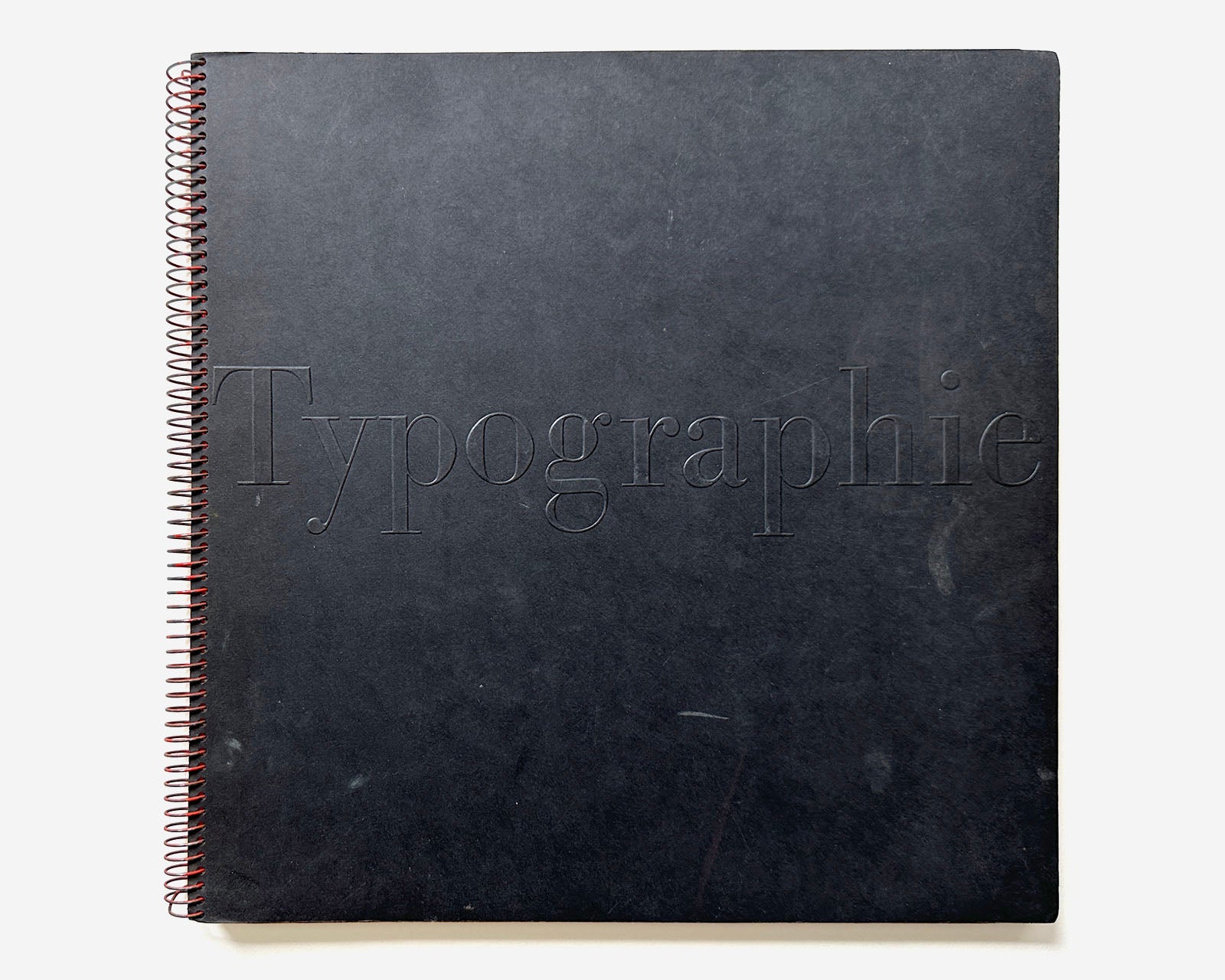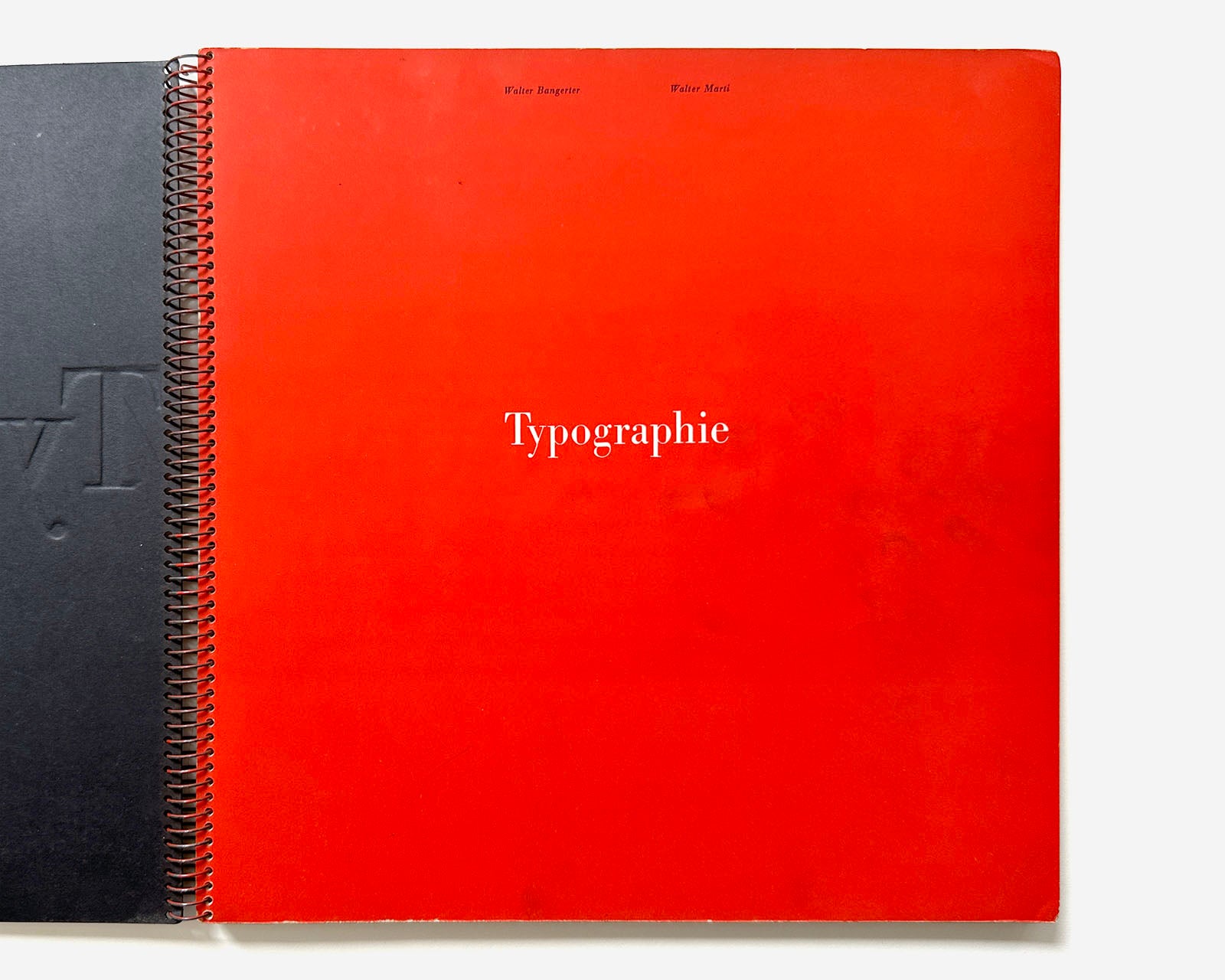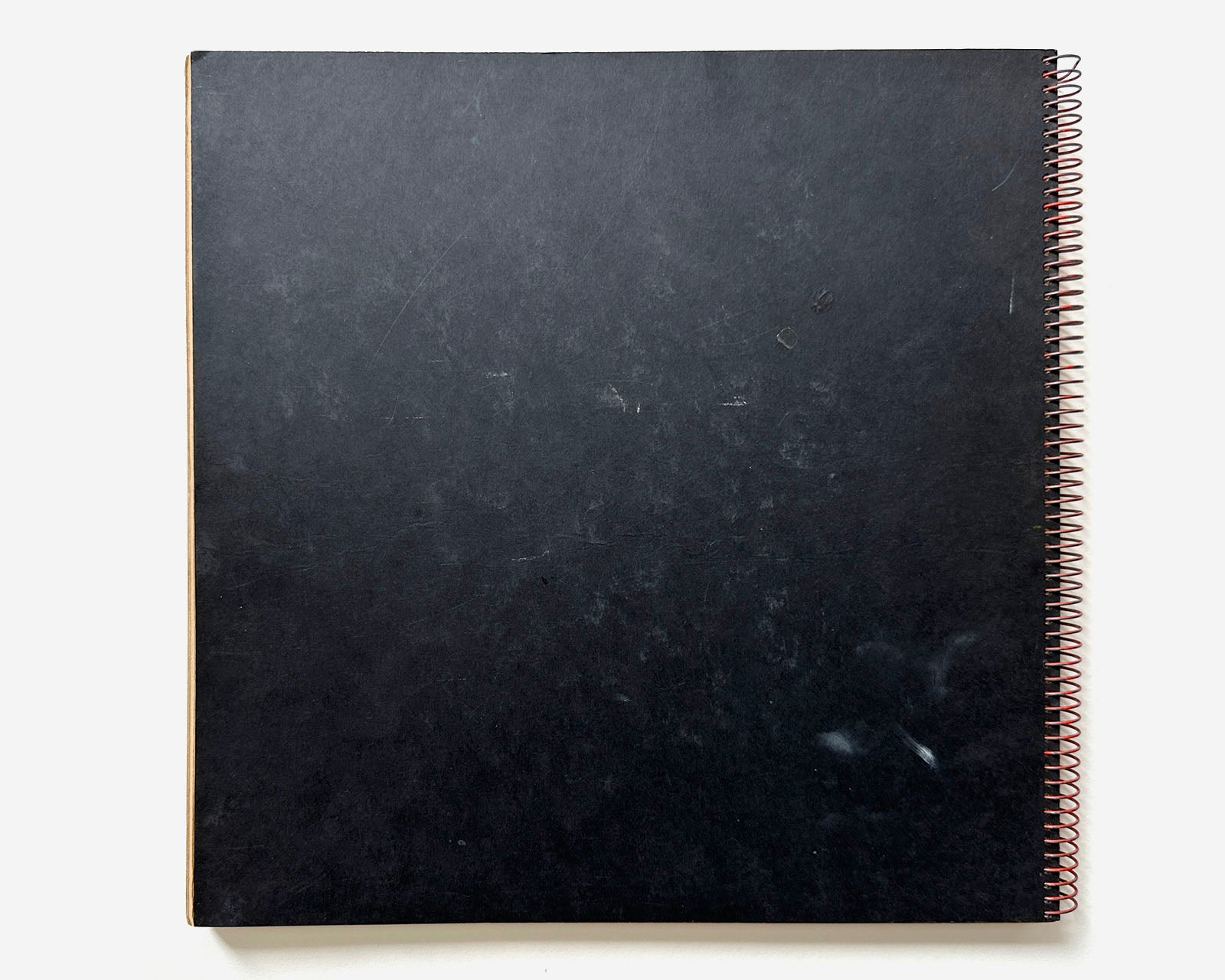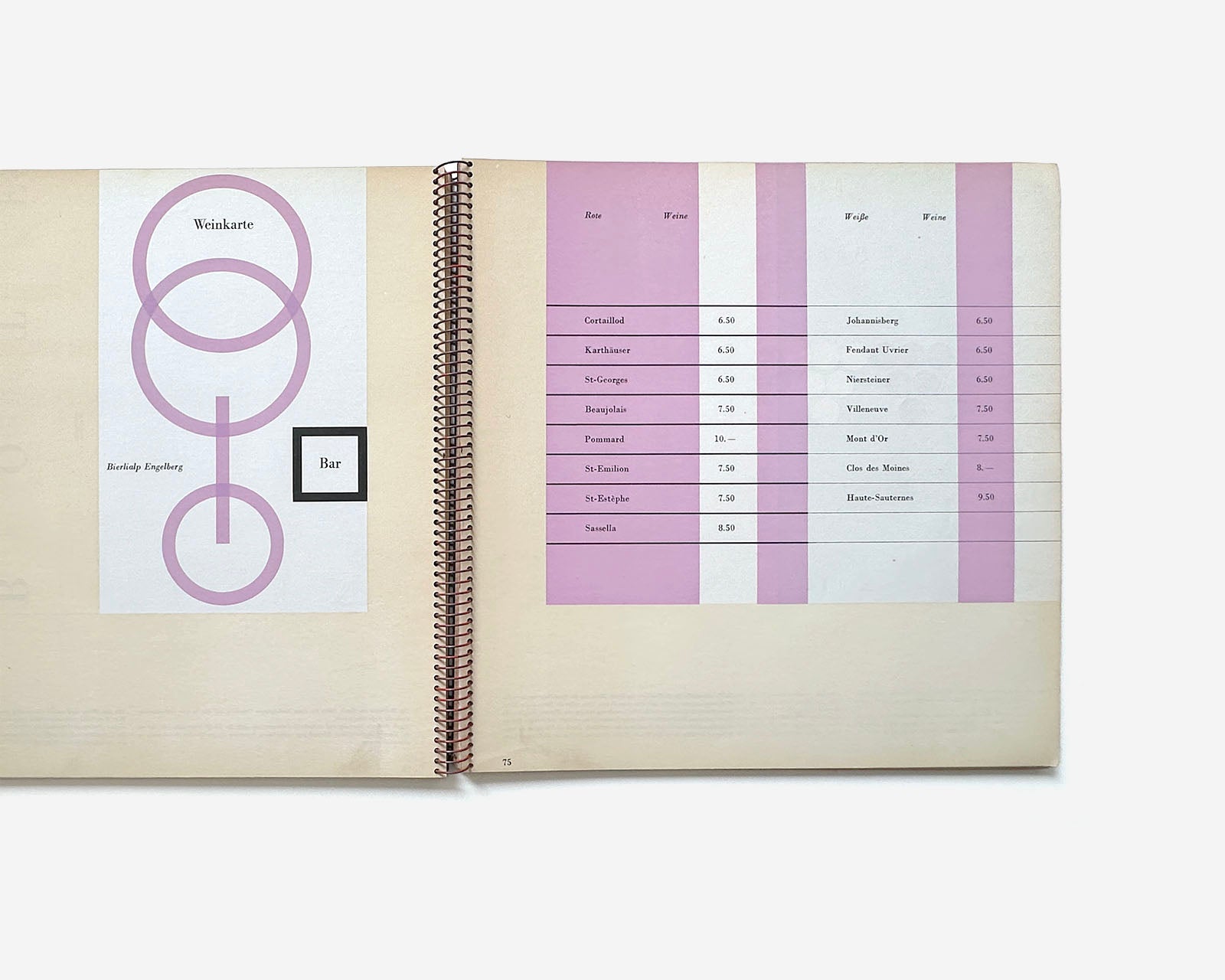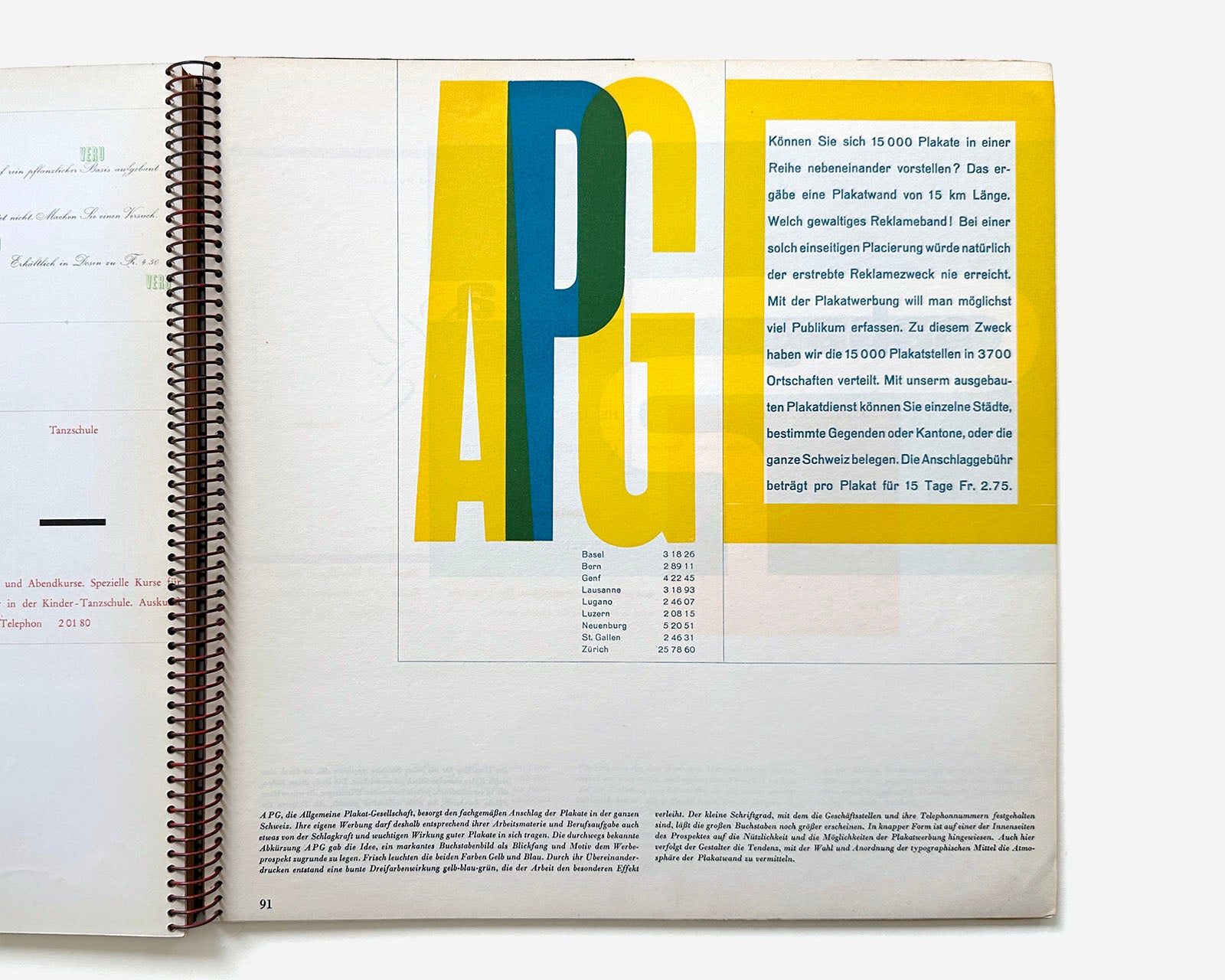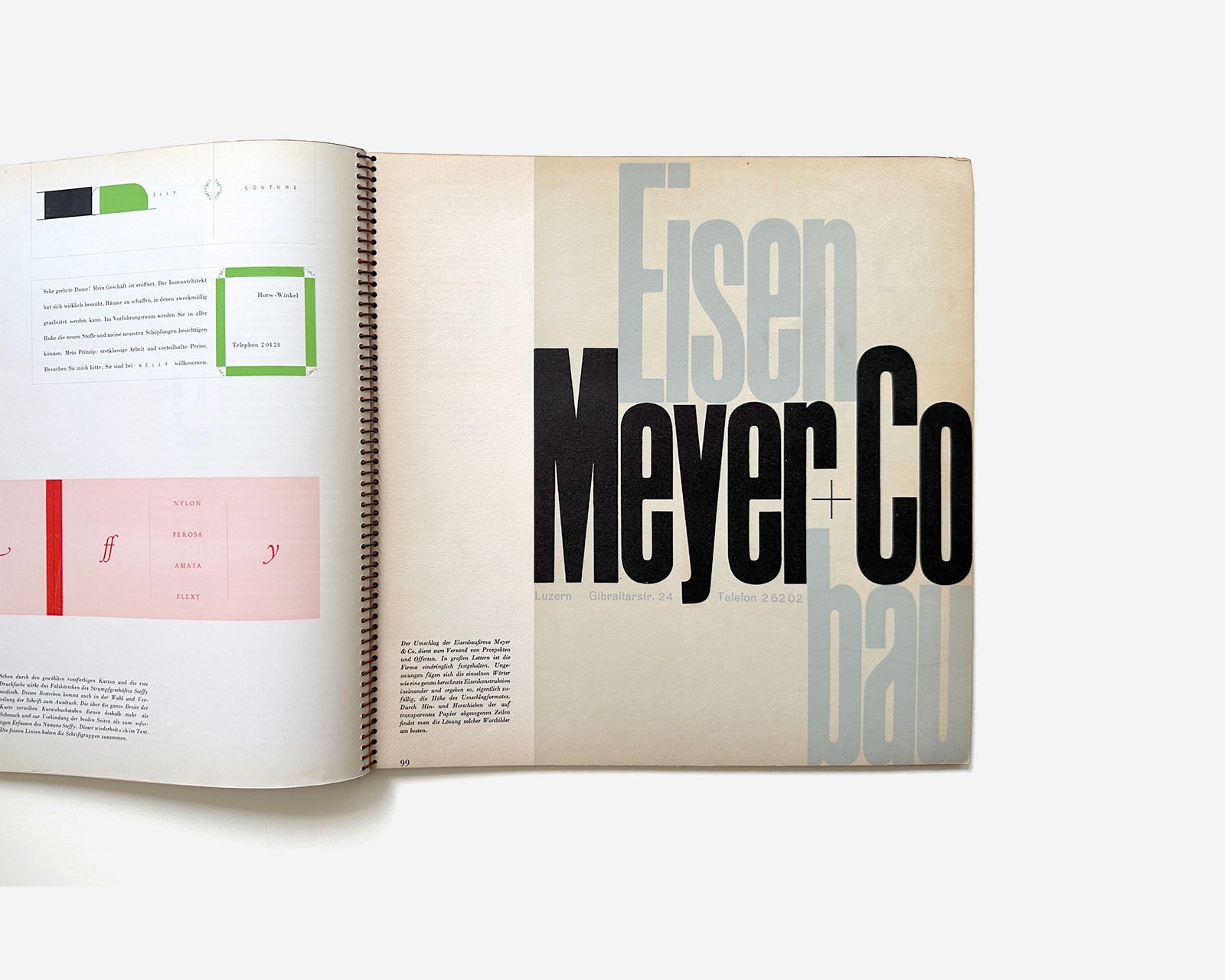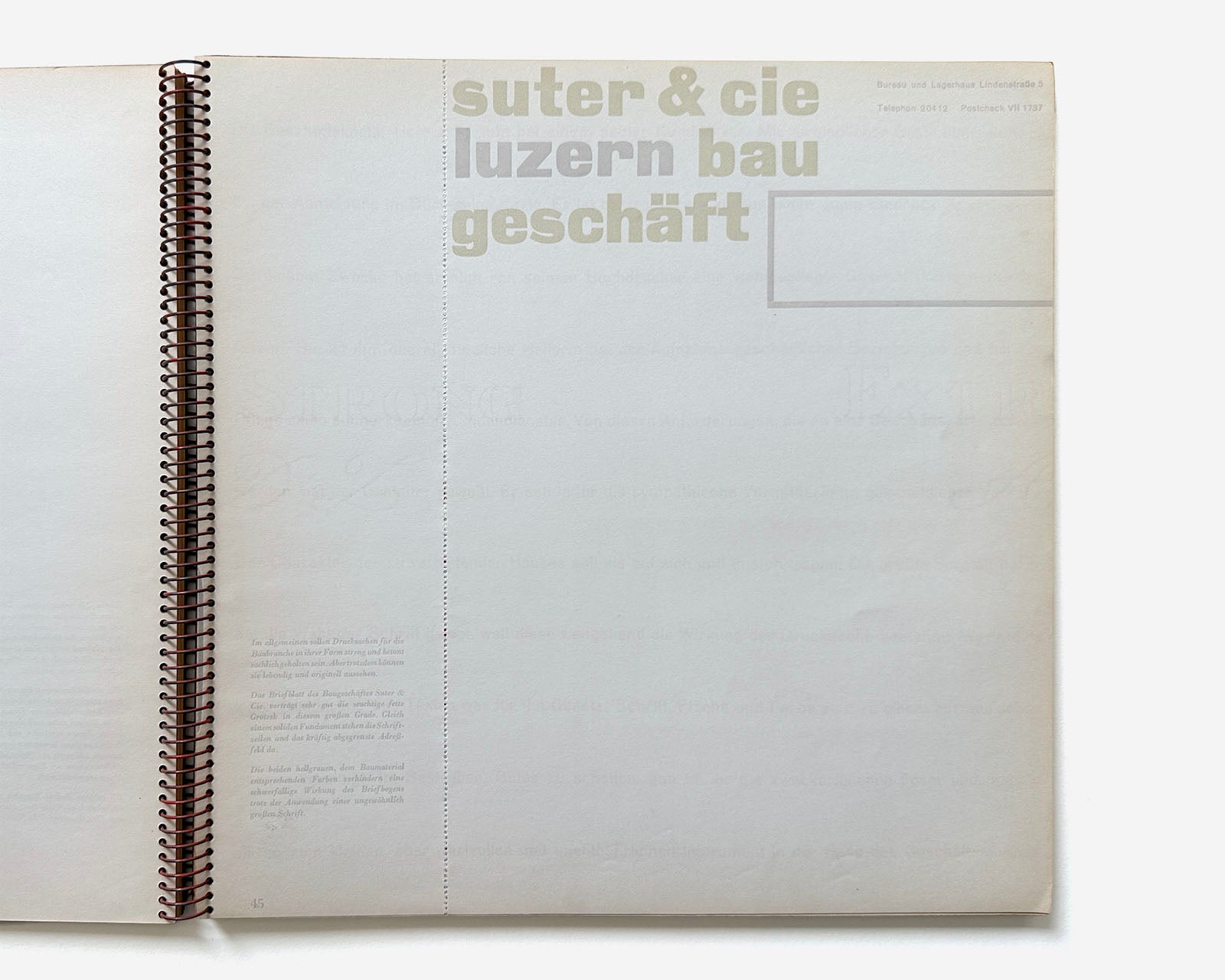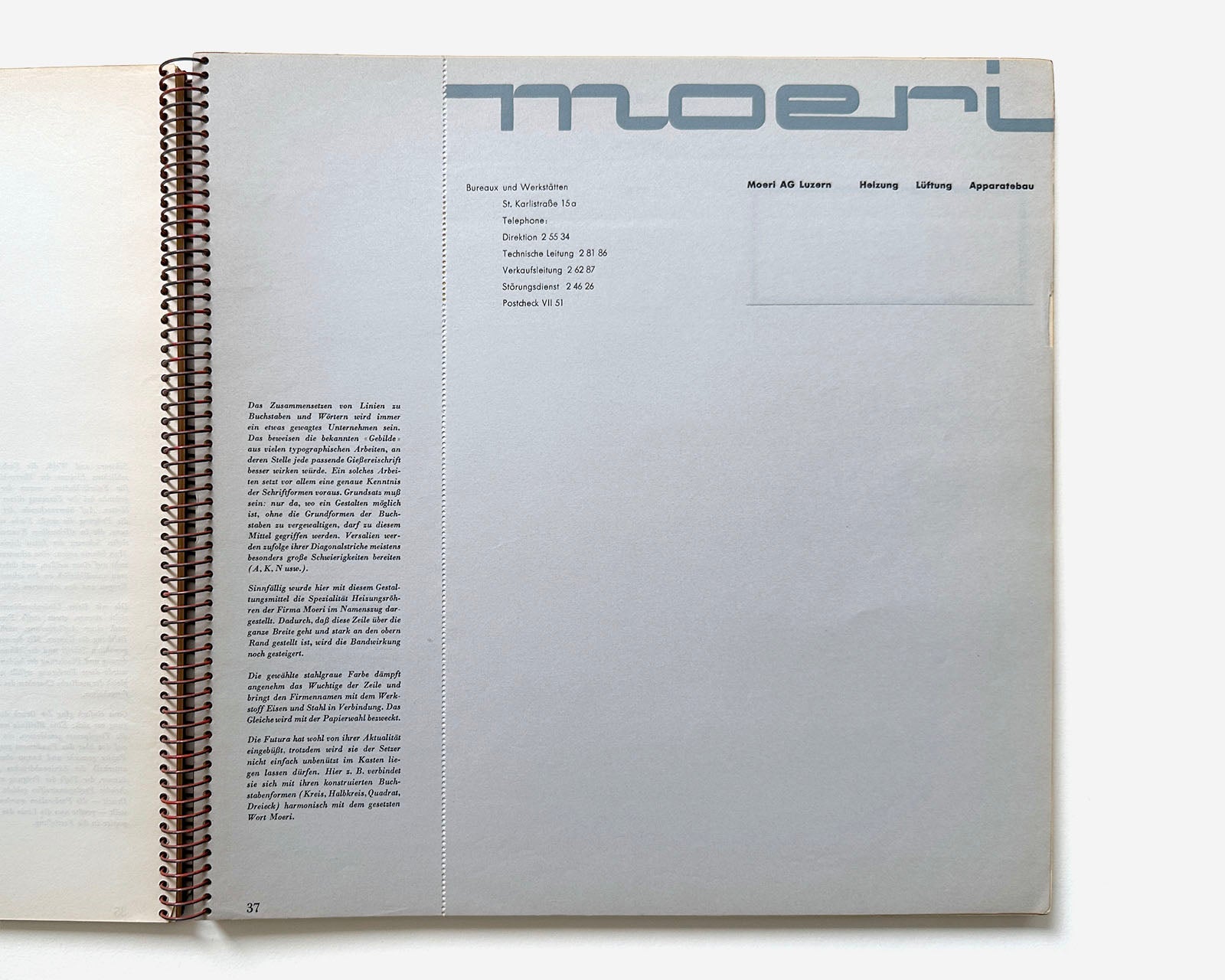
Typographie by Walter Bangerter & Walter Marti, 1948 [post–WWII Swiss Typography]
Typographie by Walter Bangerter and Walter Marti, 1948. Printed by Keller & Co. AG und Schill & Cie, Lucerne, Switzerland. German text only, 11.5 x 11.75, 138 pages. Embossed title on stiff black cardboard with a worn red painted spiral wire binding.
From the loosely translated introduction ... “Do today’s printed materials speak the visual language of our time? Apart from a few truly excellent examples, no. This deficiency gave rise to our collaborative work: to create new, authentic printed materials and to compile them in an illustrative and educational work. May this book thus serve as an inspiration for all who wish to work seriously in a fine profession.”
Sections feature contemporary design work of the two authors/designers: logos, letterhead, business cards, menus, labels, brochures, Ex-Libris bookplates (tipped-in), posters, and advertisements — beautifully printed using experimental techniques and paper stocks. The letterhead section is particularly impressive, printed on the paper originally specified by the designers/typographers and perforated. Main sections and most works include thoughtful commentary. Overall, a valuable contribution (and snapshot) to early post–WWII, modern Swiss typography and graphic design. This is the first edition, a later edition by Marti was published in 1957.
A very good spiral-bound book with light wear; pages turn easily. The black cardboard covers are marginally scuffed and interior pages show signs of light handling ... fingerprints, a letterhead that’s been folded, a page with a small tear, and some toning along the margins. Recommended!